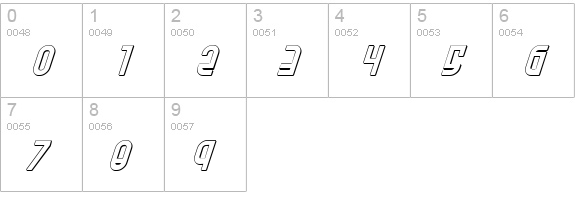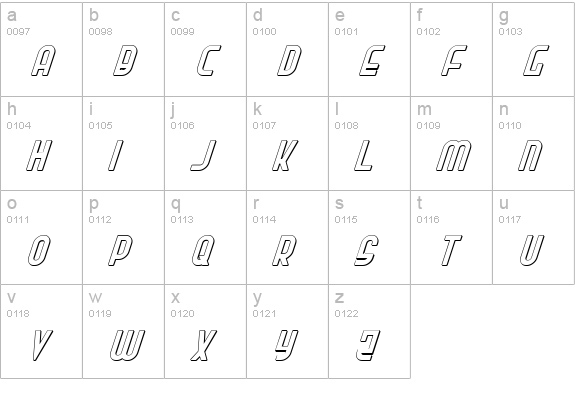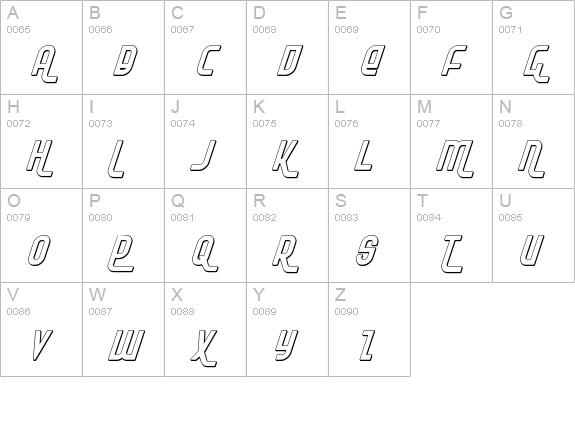
Ro'Ki'Kier Shadow Italic is a distinctive, italic variant in the Ro'Ki'Kier typeface family \xE2\x80\x94 well suited to design and typography projects.
Ro'Ki'Kier Shadow Italic font is a unique and stylish typeface that exudes elegance and sophistication. With its sleek design and subtle shadow effect, this font is perfect for adding a touch of modern flair to any project. The italic style lends a sense of movement and energy to the text, making it ideal for eye-catching headlines and promotional materials. What sets Ro'Ki'Kier Shadow Italic font apart is that it is available for free download at FontsMarket.com. This means that you can easily access this beautiful font and use it in your designs without any cost. Whether you're working on a personal project or a professional assignment, Ro'Ki'Kier Shadow Italic font will help elevate your work and make it stand out. Don't miss out on the opportunity to enhance your designs with this stunning font. Download Ro'Ki'Kier Shadow Italic font today and take your projects to the next level.